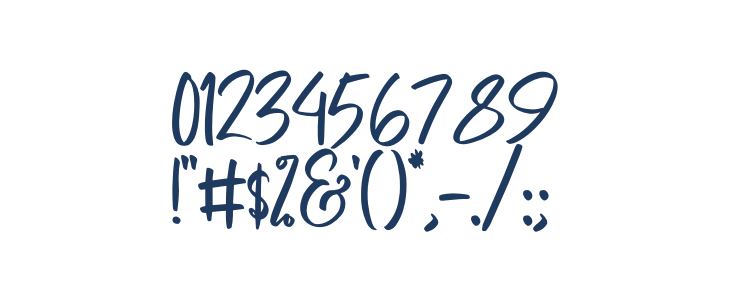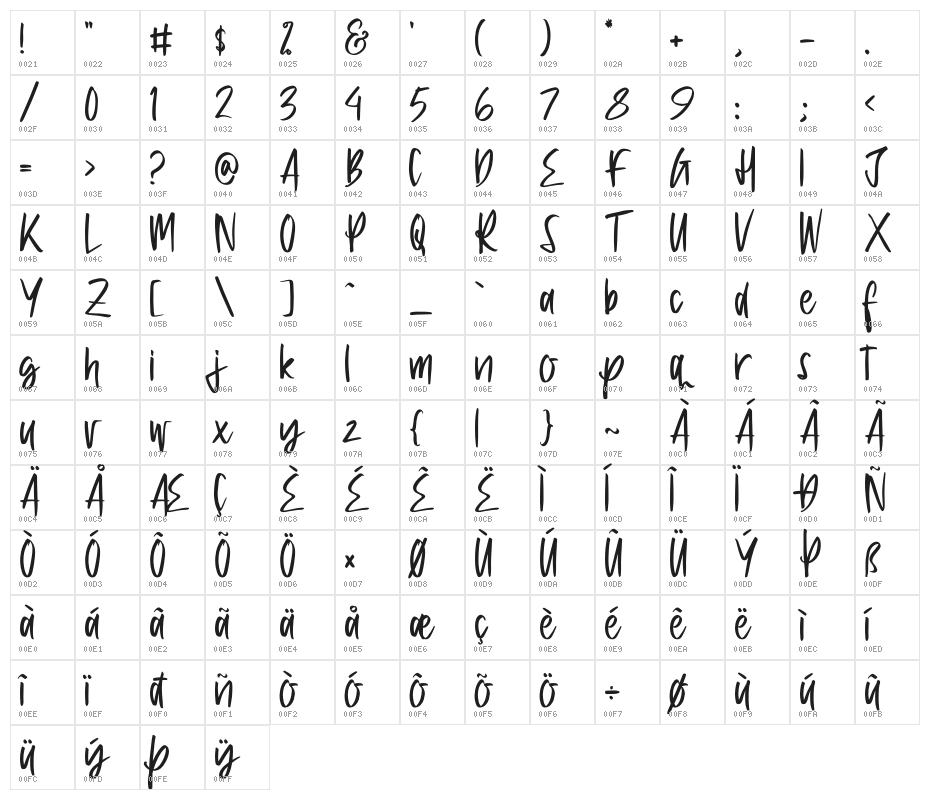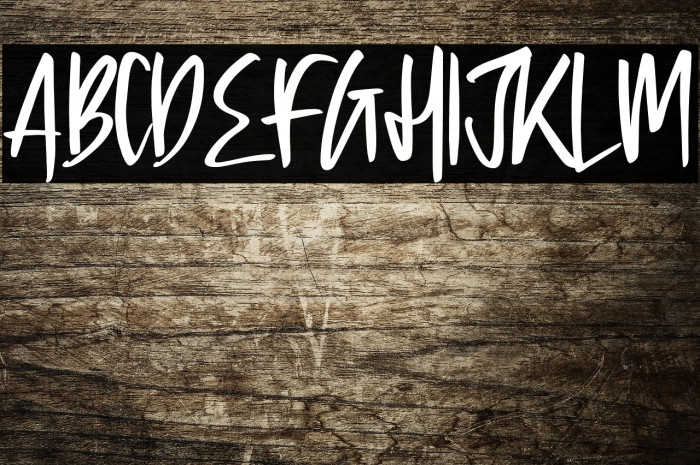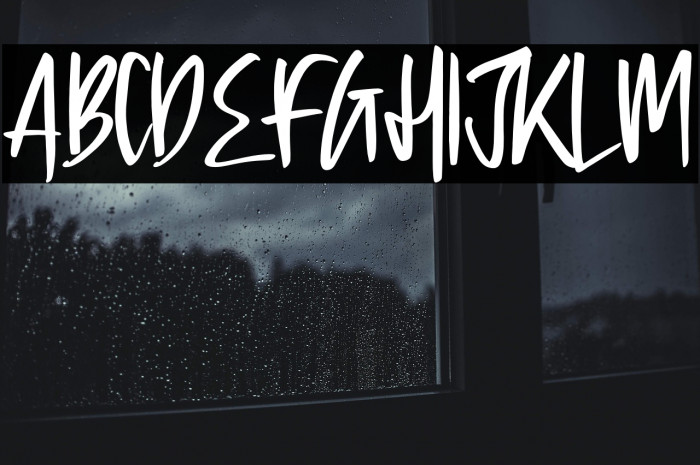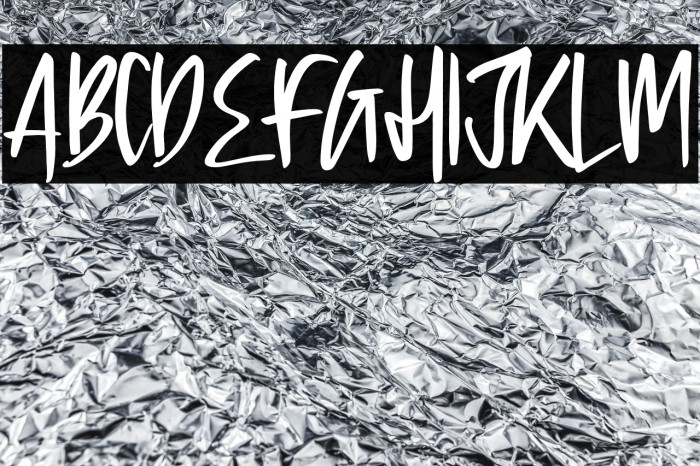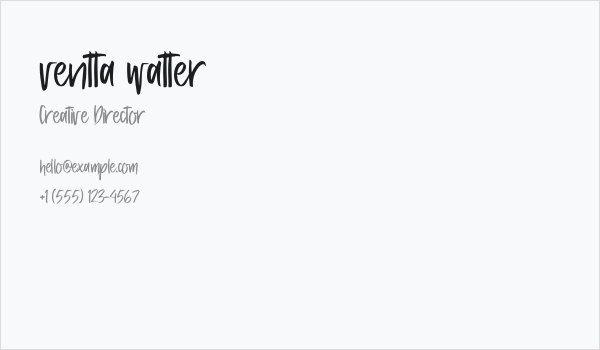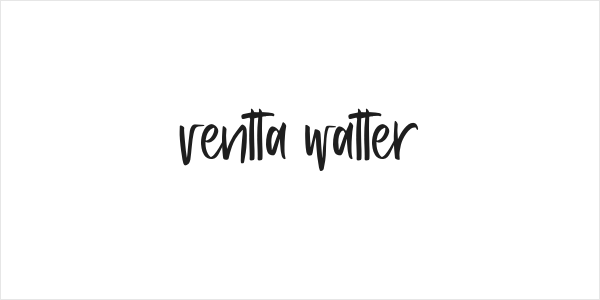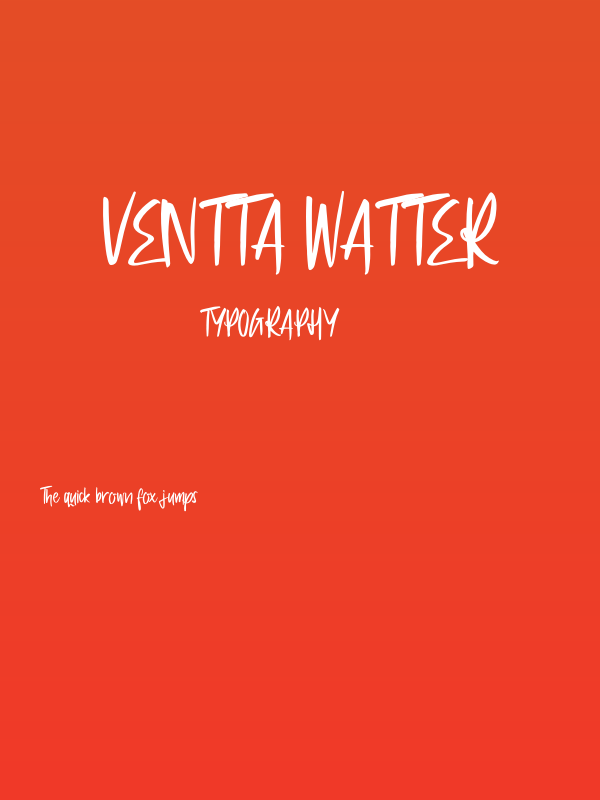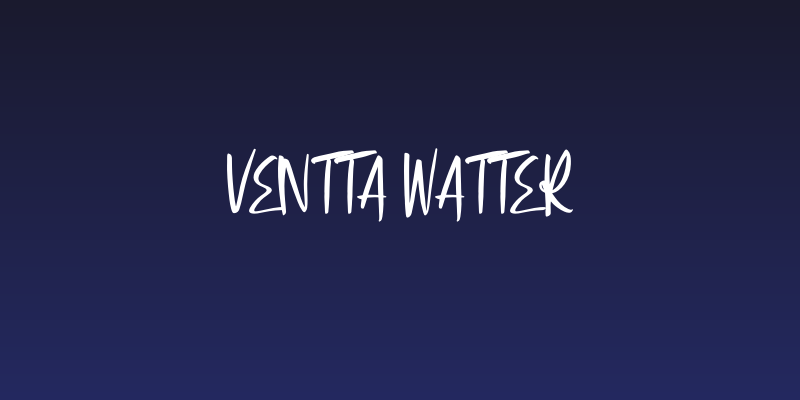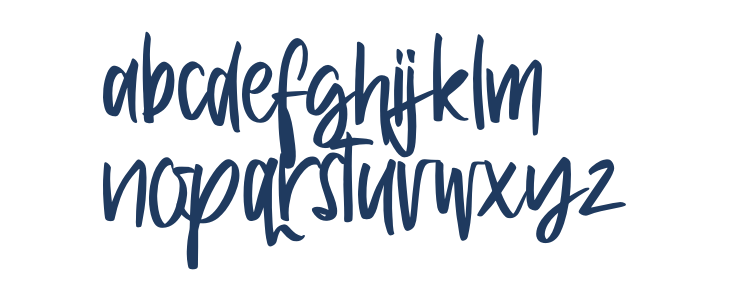
ventta watter Font
ventta watter Description
This font features a bold and expressive handwritten style, characterized by its dynamic and fluid strokes. The letters are slightly slanted, adding to the casual and informal feel. The uppercase and lowercase letters maintain a consistent style, with some characters featuring unique loops and curves that enhance its playful nature. The numbers and special characters are equally expressive, matching the overall aesthetic. This font is ideal for projects that require a personal touch or a creative flair.
| Use Case | Logos, Headlines, Posters |
| Proposed Projects | Ideal for greeting cards, posters, branding projects, and social media graphics. |